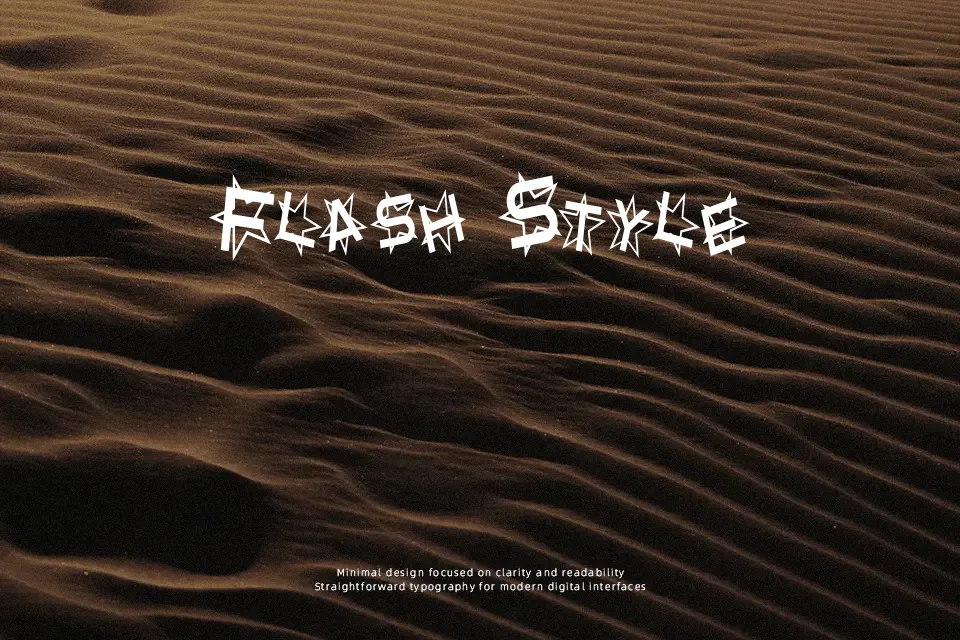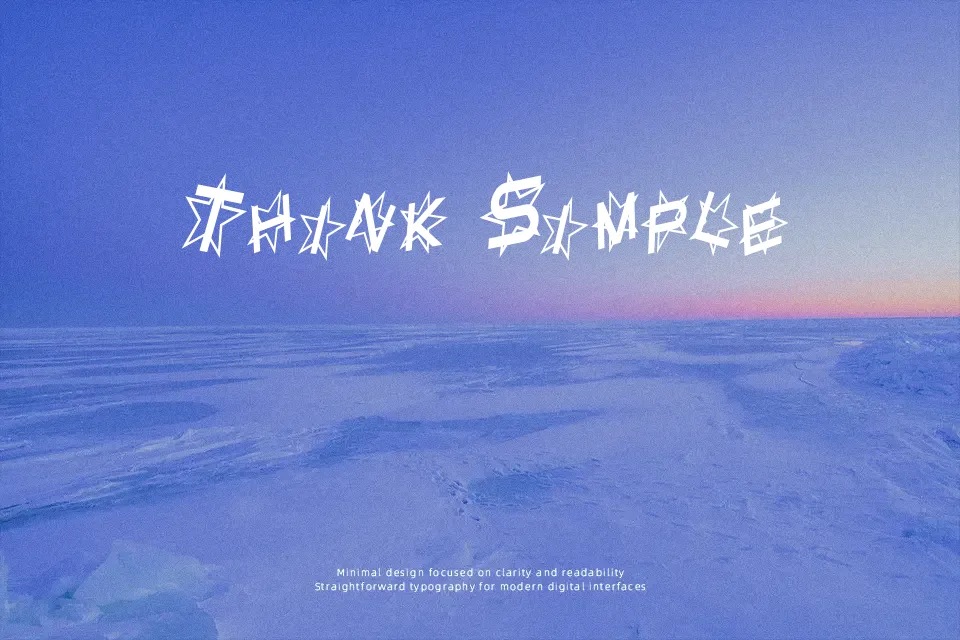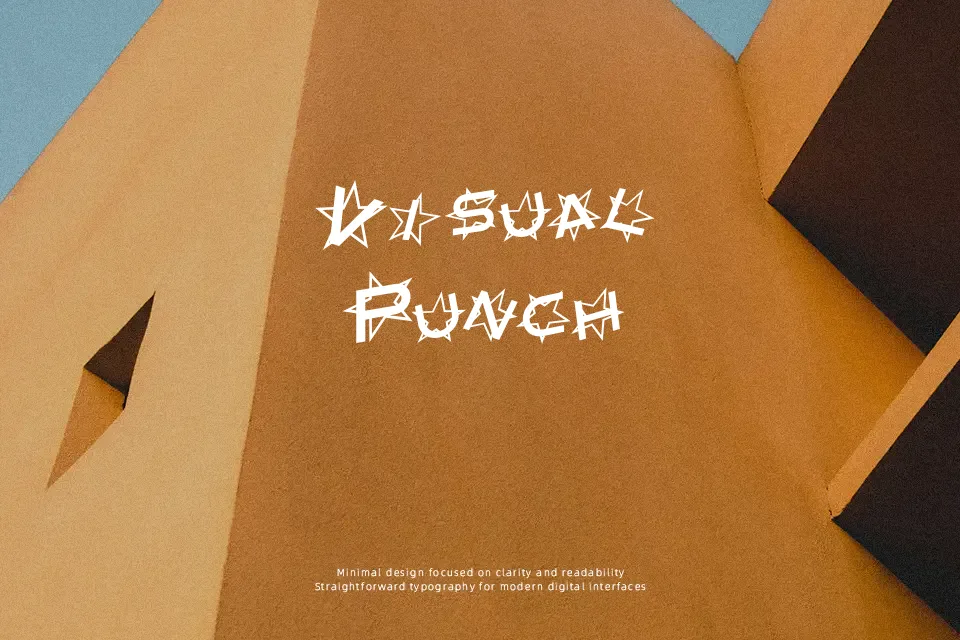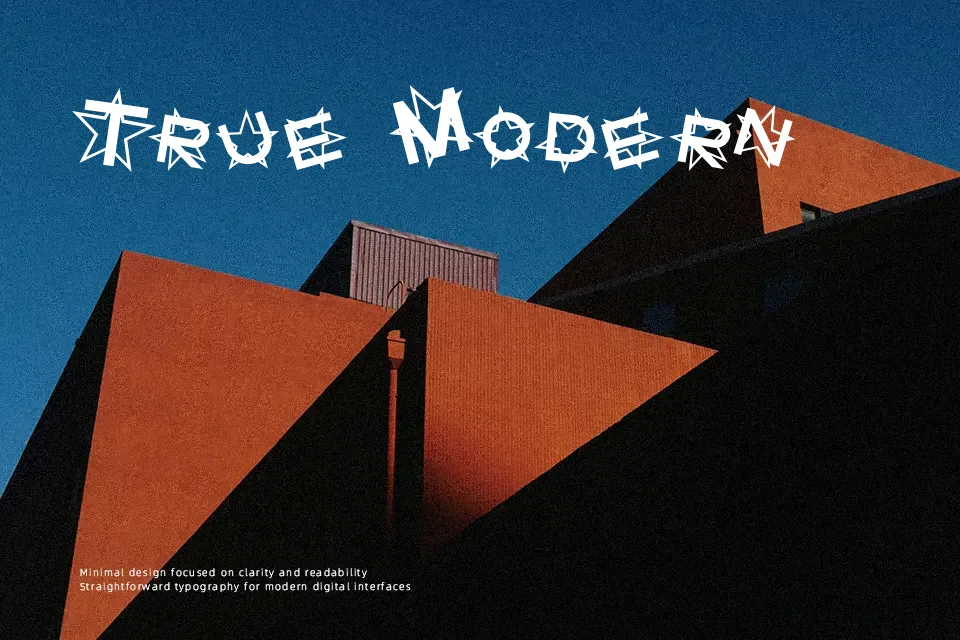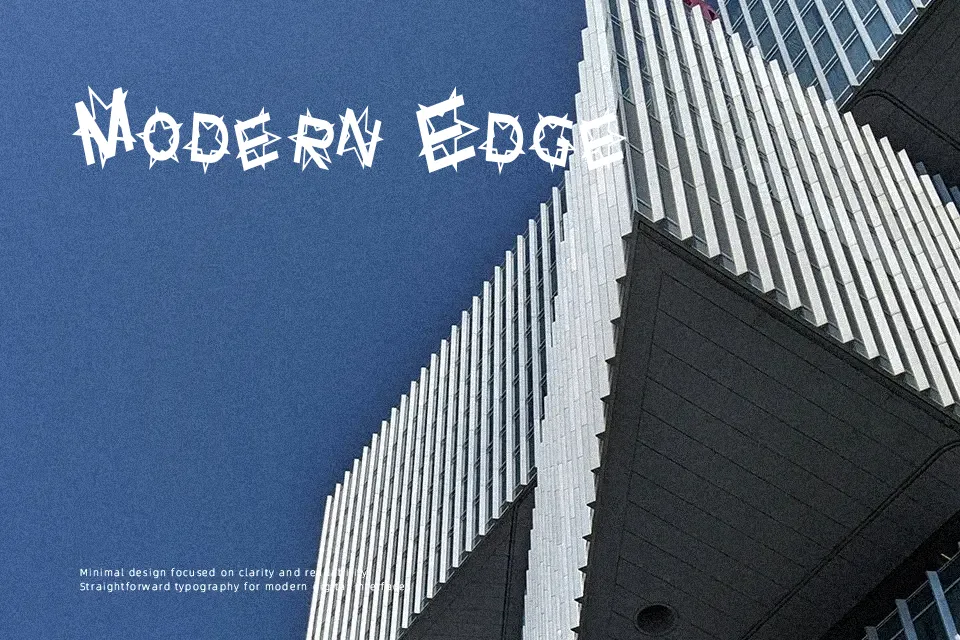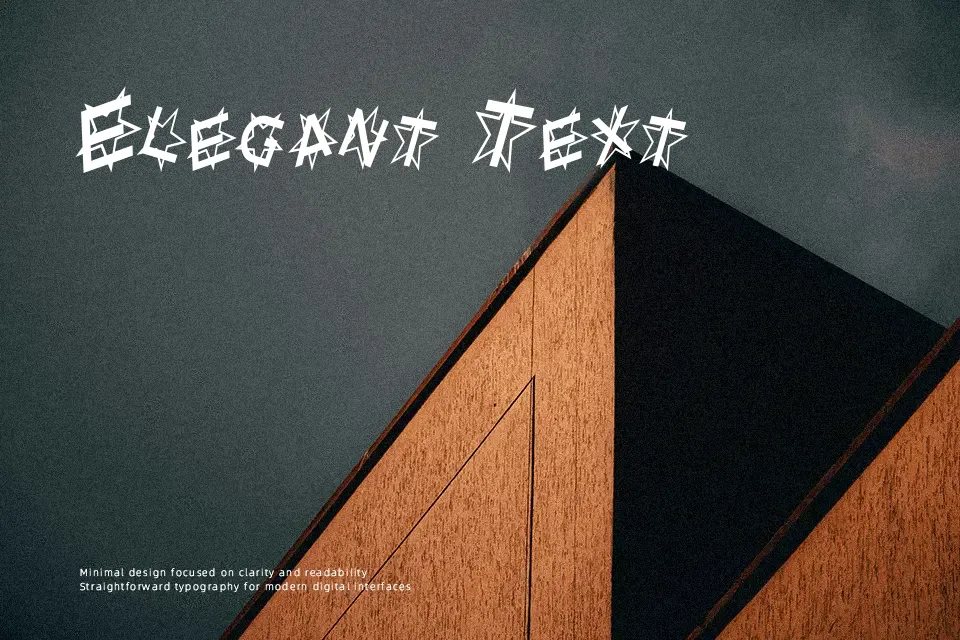
Star Dust Font
Characterized by prominent star silhouettes embedded within solid geometric strokes, Star Dust Font presents an eye-catching decorative aesthetic built on consistent line weights and wide character spacing. The uppercase letterforms exhibit balanced symmetry and moderate proportions that command attention in poster banners, amusement branding, and youth-oriented packaging. Because the internal star ornaments add visual density to each glyph, the design achieves maximum clarity when rendered at medium to large display scales. However, dense decorative elements substantially diminish legibility in extended body copy or small interface labels, making the typeface unsuited for continuous reading where uncluttered glyph anatomy is required.
Best For: children’s book titles, festive event banners, theme park signage, arcade gaming posters
Not Ideal For: continuous body text, mobile interface labels, technical documentation, corporate financial reports
Perfect for gaming, headline, and kids, with a bold and decorative style.